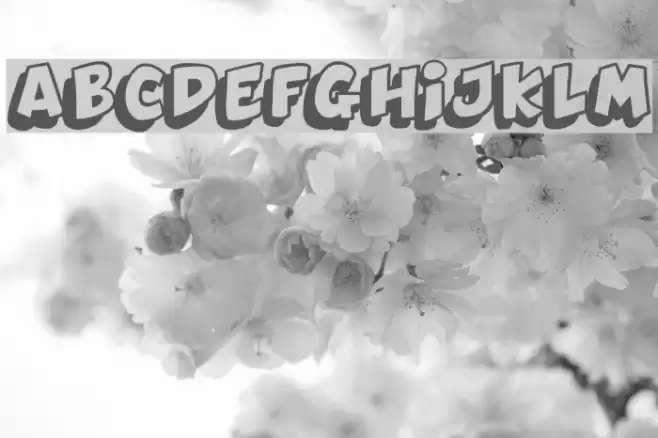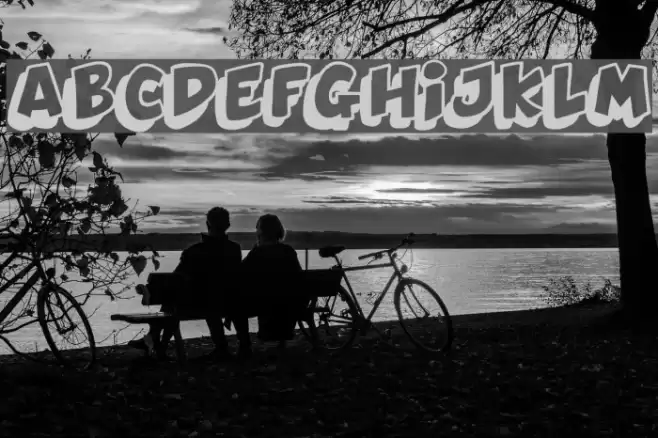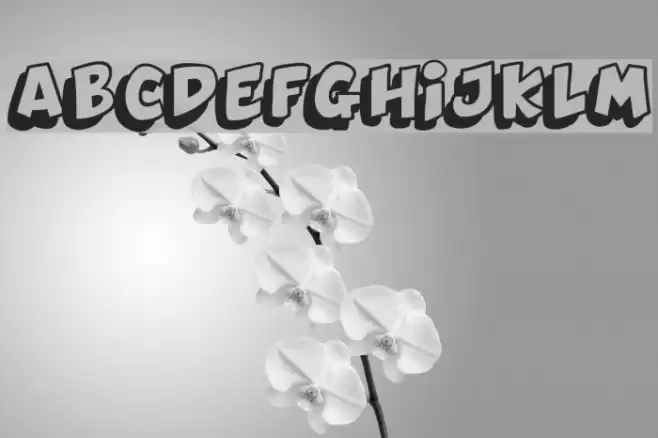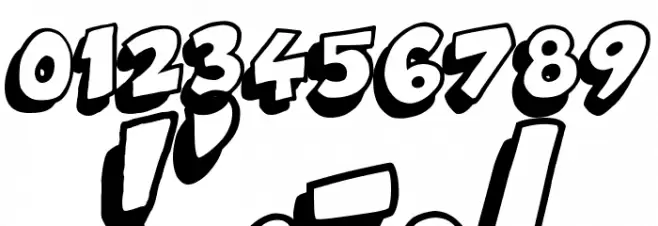
Dynamix Font
Dynamix Description
This font features a bold and playful style with a three-dimensional effect, characterized by thick, rounded letters that appear to pop off the page. The uppercase and lowercase letters maintain a consistent, cartoonish aesthetic, making it ideal for eye-catching designs. The numbers and special characters follow the same playful theme, ensuring a cohesive look across all text elements. The font's exaggerated curves and shadows give it a dynamic and energetic feel, perfect for projects that require a fun and engaging visual impact.
A bold, playful font with a 3D effect and cartoonish style from Uncategorized fonts.
- Proposed Projects: Ideal for comic books, children's books, playful branding, and posters.
- Overall Style: Playful, Energetic